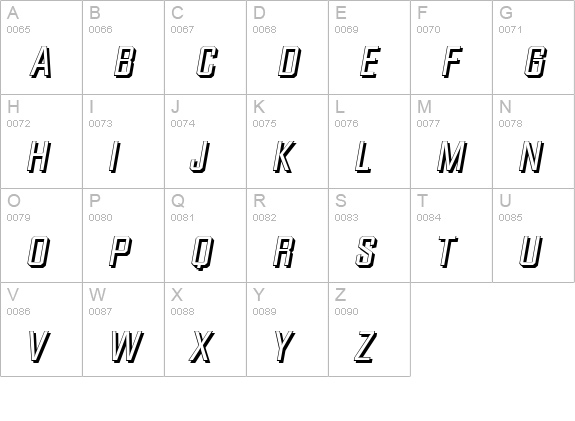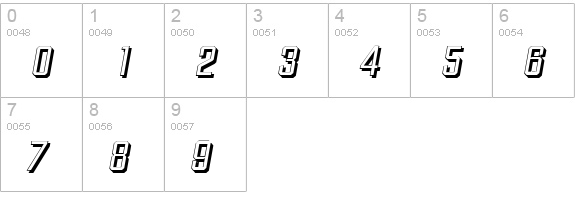
DiamanteShadow-Italic Font Details
DiamanteShadow-Italic is a distinctive, italic variant in the DiamanteShadow typeface family \xE2\x80\x94 well suited to design and typography projects.
DiamanteShadow-Italic font is a stunning and elegant typeface that exudes sophistication and style. Its italic design adds a touch of flair and drama to any text, making it perfect for luxury branding, editorial design, and more. The unique shadow effect creates a sense of depth and dimension, adding visual interest to your projects. What's even better is that DiamanteShadow-Italic font is completely free to download at FontsMarket.com. Simply head over to the website and get your hands on this exquisite font without any cost. Whether you're a designer looking to elevate your work or someone seeking a touch of glamour in their projects, DiamanteShadow-Italic font is the perfect choice. Download it today and add a touch of sophistication to your designs.